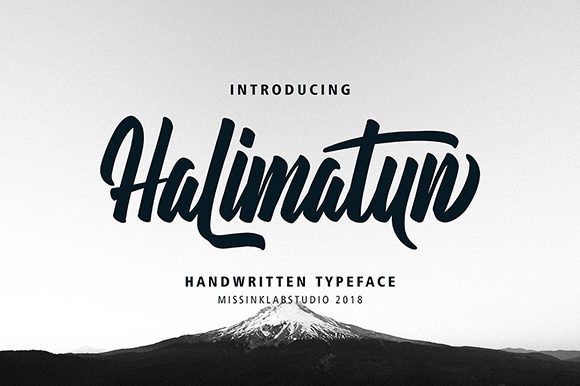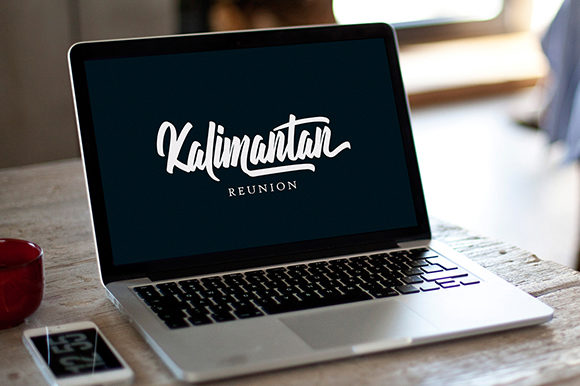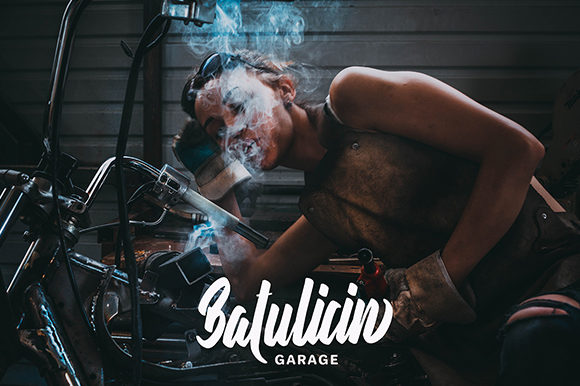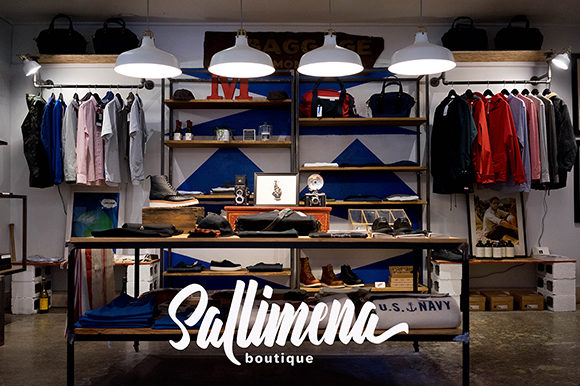
HomeScript FontsHalimatun Font Script Fonts Halimatun Font FacebookXPinterestWhatsApp Halimatun Font Poster 2 Halimatun Font Poster 3 Halimatun Font Poster 4 Halimatun Font Poster 5 About Halimatun Font Halimatun is a unique handwritten font with an authentic twist. Get inspired by its bold swashes. DOWNLOAD ON CREATIVE FABRICAThis font is sold and delivered by Creative Fabrica. Font Canyon may earn a commission if you buy through this link. People also explored Petit Oiseau Cilantro Chocoladine Font Folkin Font Slimpick Font Board Points Font Asphalt Mens Bella Canvas 3001 Mockup Hashtag Font Welly & Moody Font 294 0 TagsHalimatun Font Previous articleGiodasi FontNext articleKarrttela Font LEAVE A REPLY Cancel reply Comment: Please enter your comment! Name:* Please enter your name here Email:* You have entered an incorrect email address! Please enter your email address here Website: Save my name, email, and website in this browser for the next time I comment. Personal Use Free Fadhista Personal Use Free Read more about this font Peachy Rose Personal Use Free Read more about this font Rise of Kingdom Personal Use Free Read more about this font Eloquence Personal Use Free Read more about this font BLOG The 10 Best Handwriting Fonts to Add Personality to Your Designs 10 of the Best Handwriting Fonts for Adding Personality to Your Designs There will undoubtedly be no other better choice than handwriting fonts to give... Top 7 Google Fonts Alternatives for Faster and Privacy-Friendly Web Design (2025) How to Cut Any Font on Cricut: Convert a Font to SVG (Free) Elegant Wedding Invitation Fonts – Handwritten & Script Fonts